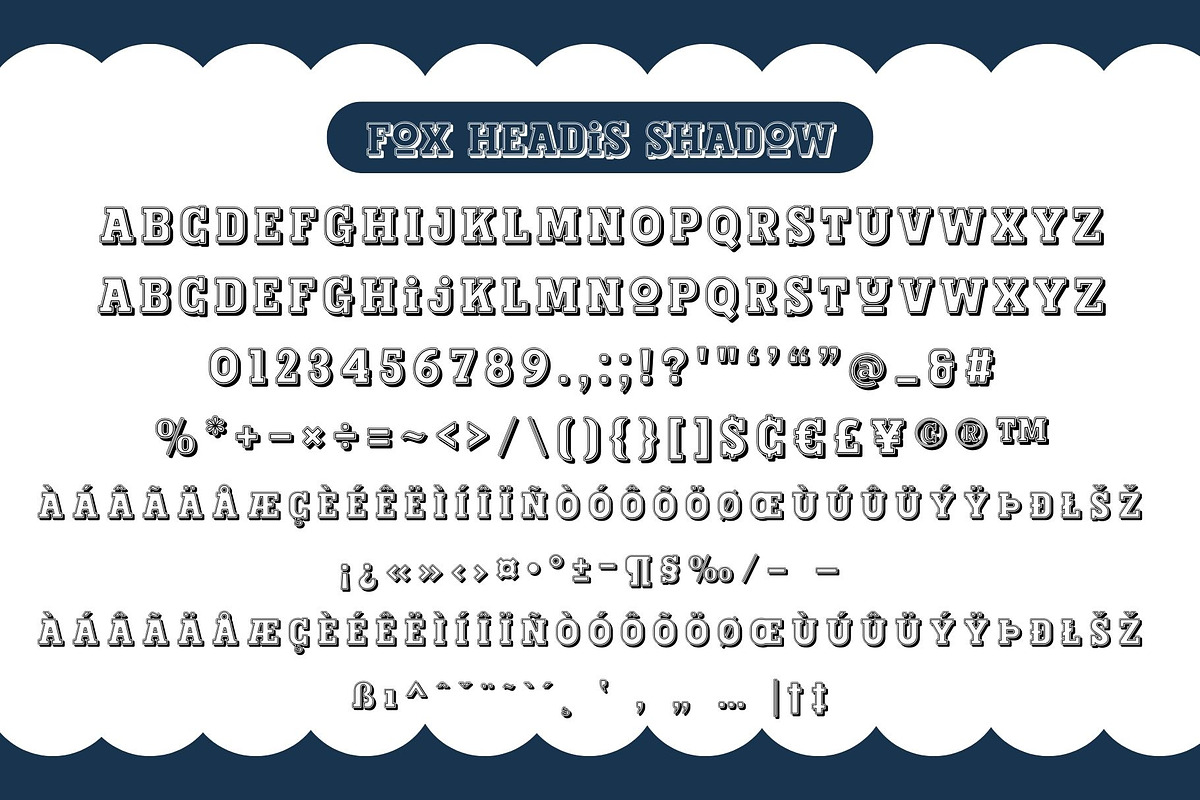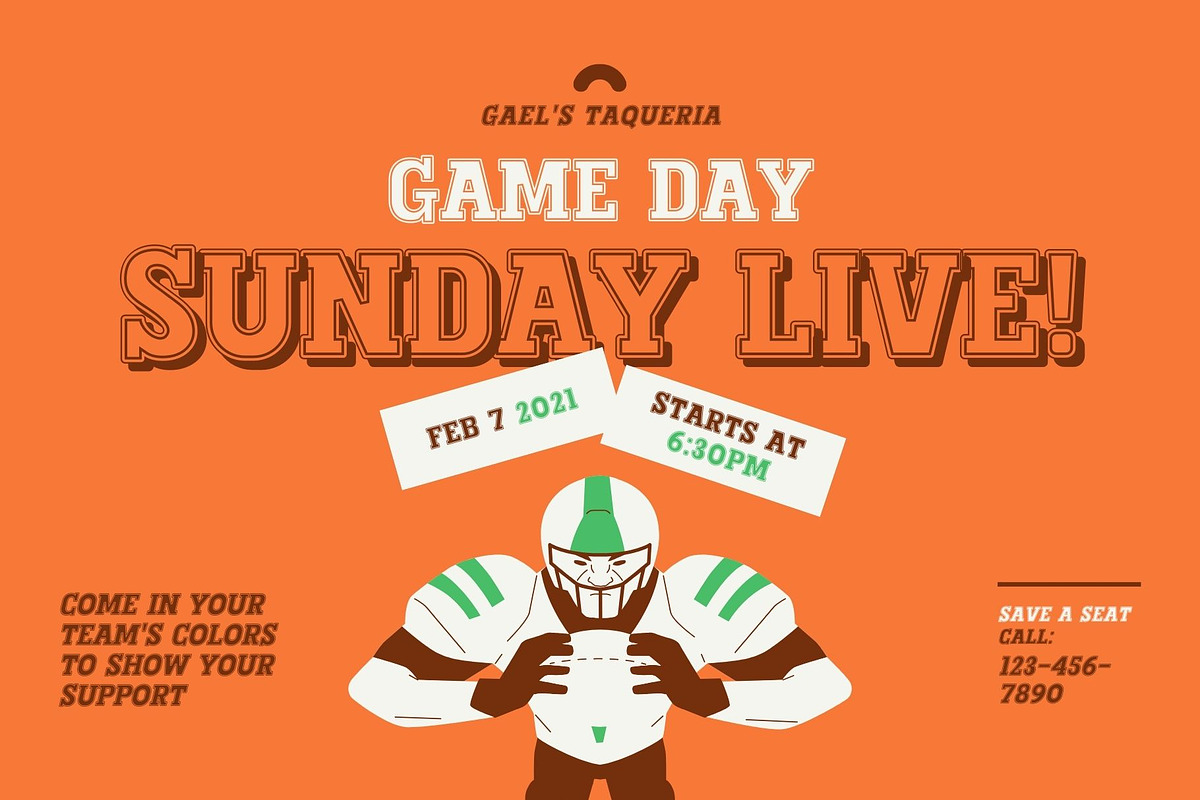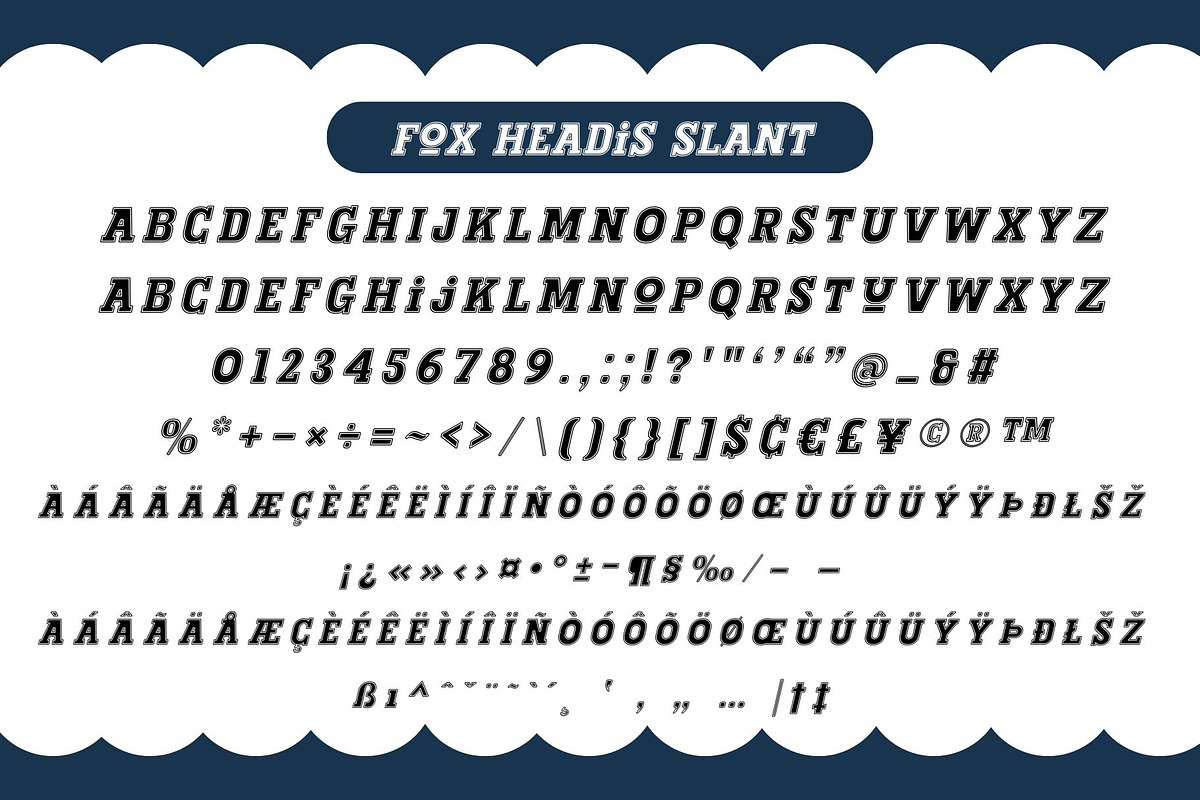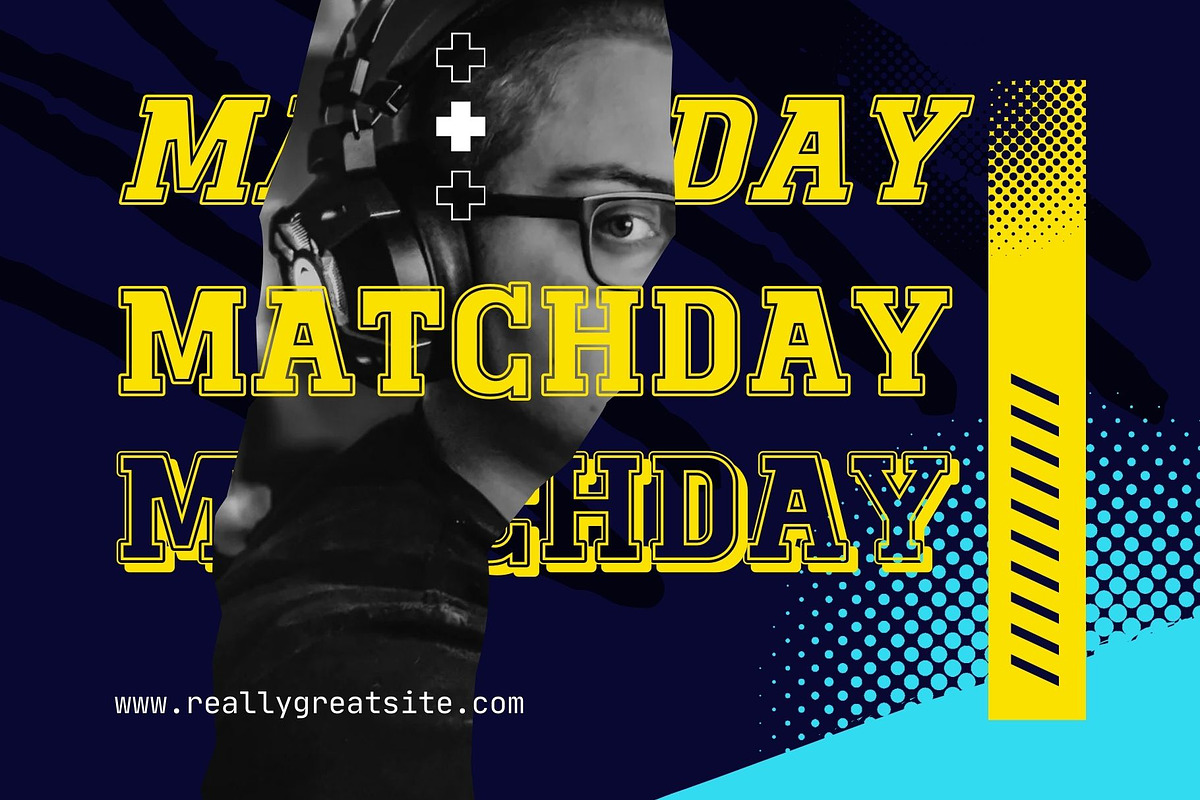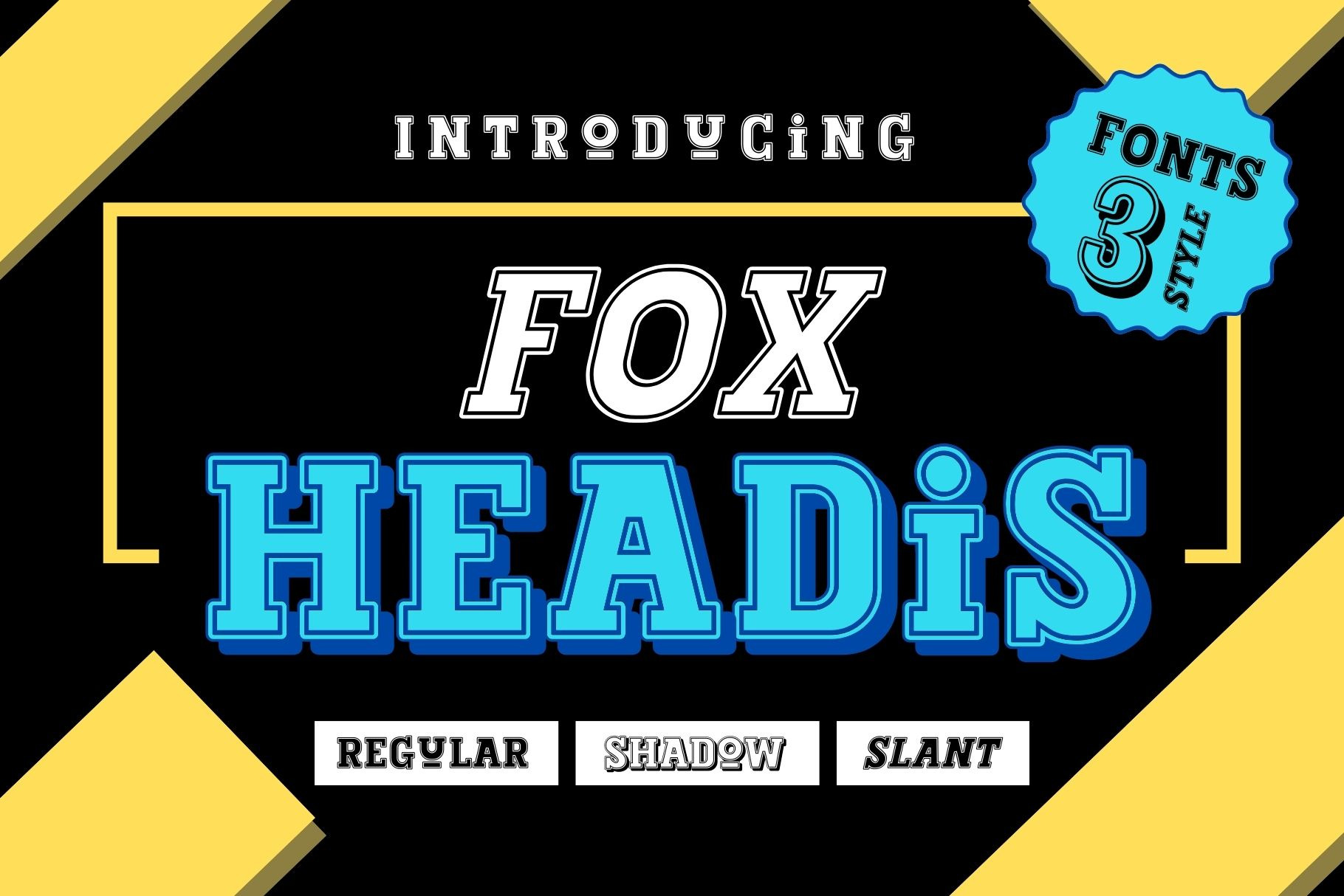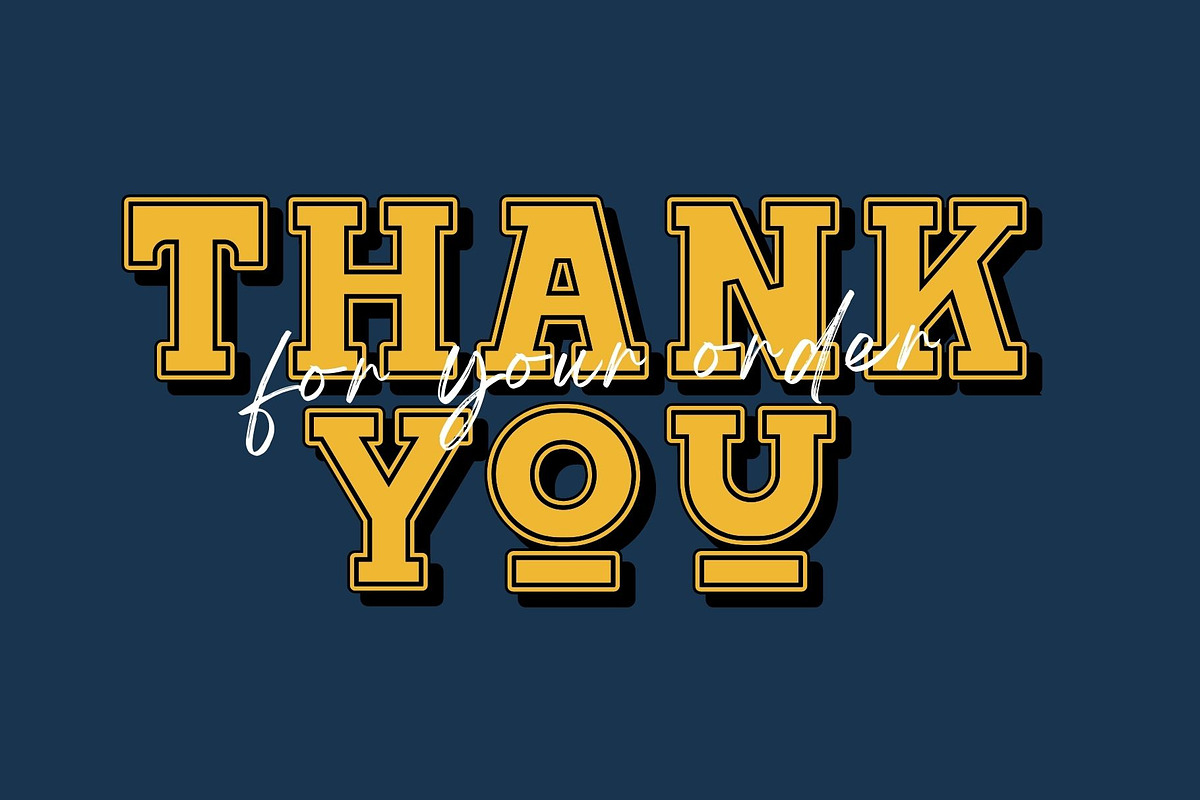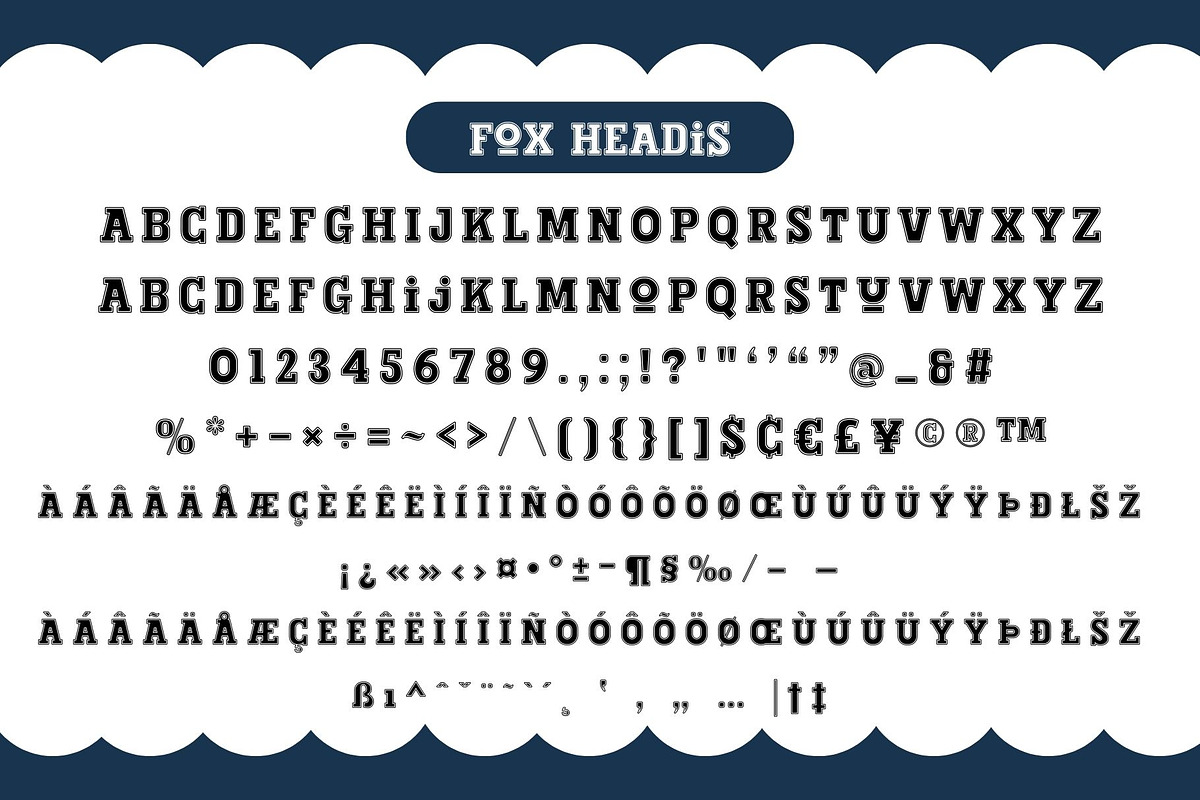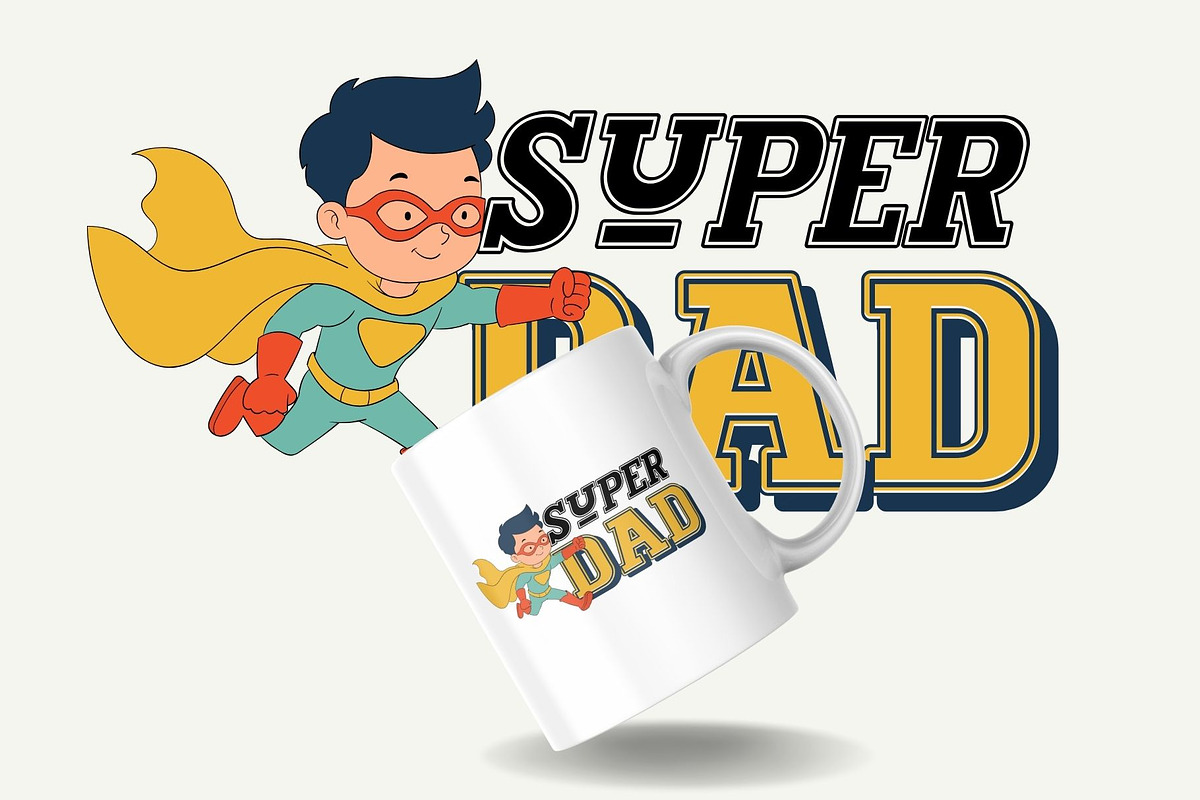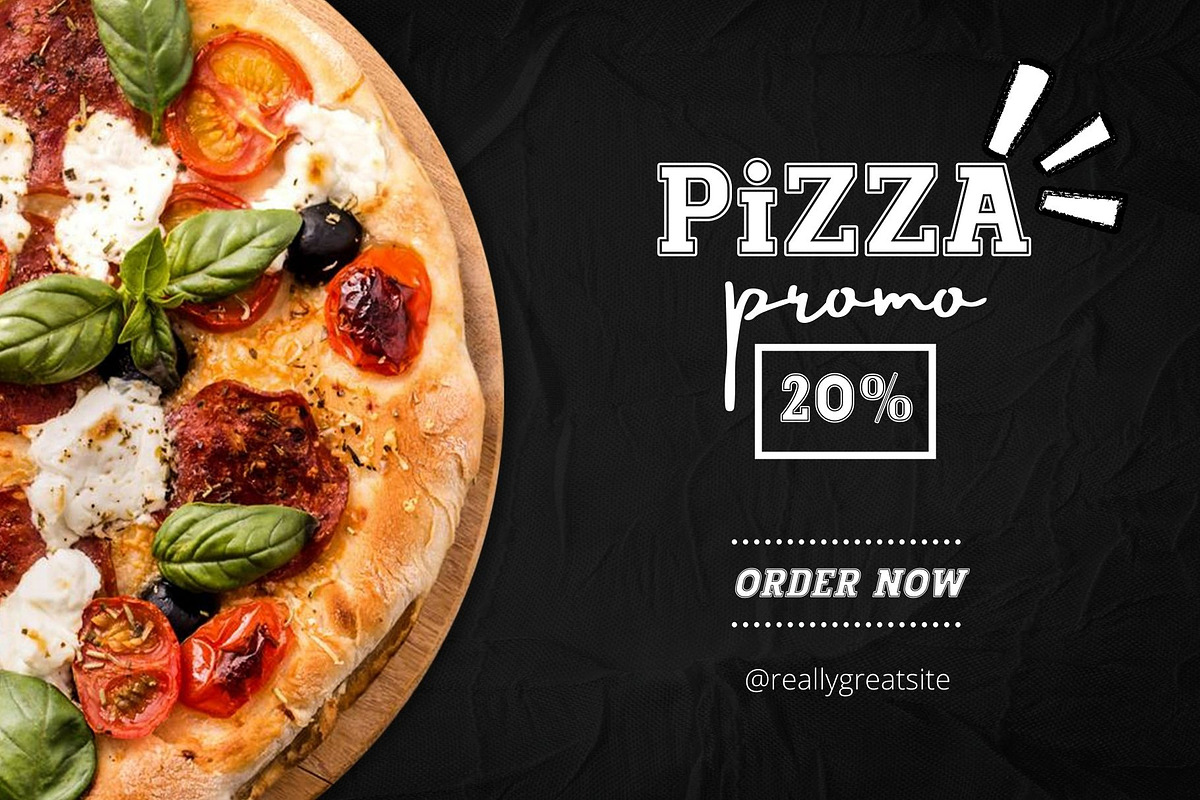
Fox Headis 3 Fonts Style
Fox Headis is a 3 style font that cool and playful display font that adds a captivating and energetic touch to your designs. Perfect for use in publications, menus, logos, business cards, or even printed on t-shirts, these fonts exude uniqueness. Its main feature is its vibrant and expressive design, allowing you to create attention-grabbing headlines, t-shirt typography, banners, product labels, and more.